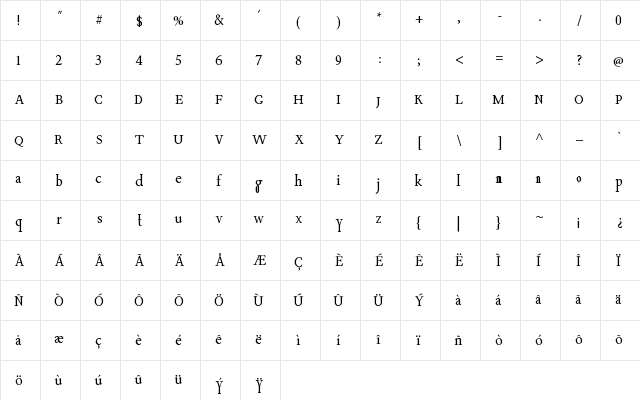
Experiment1-Elongated Ears Regular
Experiment1-Elongated Ears takes a measured approach to typography — its balanced proportions and neutral character make it a reliable workhorse for both digital and print work.
Pro Tip: Use Experiment1-Elongated Ears in both headline and body roles to test its range before committing to a single application.